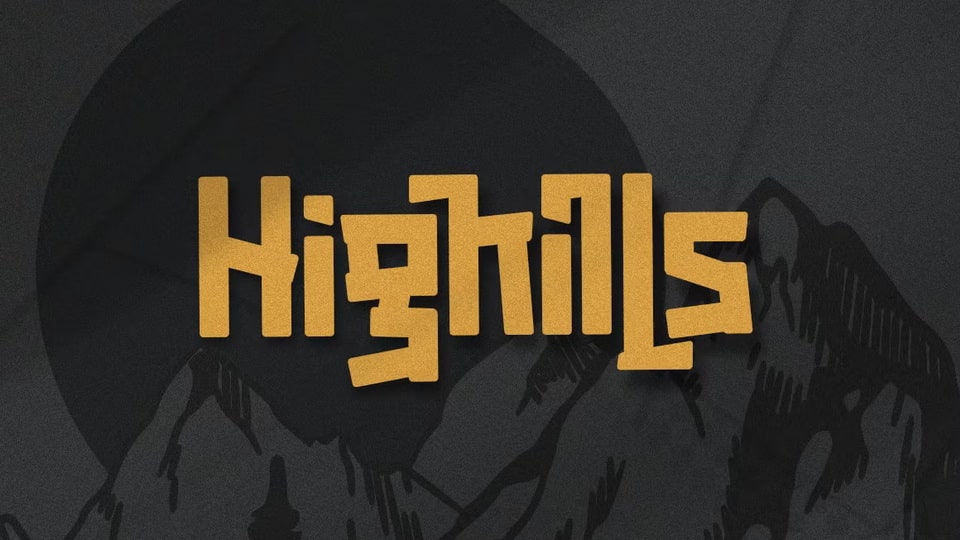
Download Highills font, an awesome bold decorative typeface. Created in rounded corner that give this font a tough and calm feel, this font has s good looking as header and as text both.